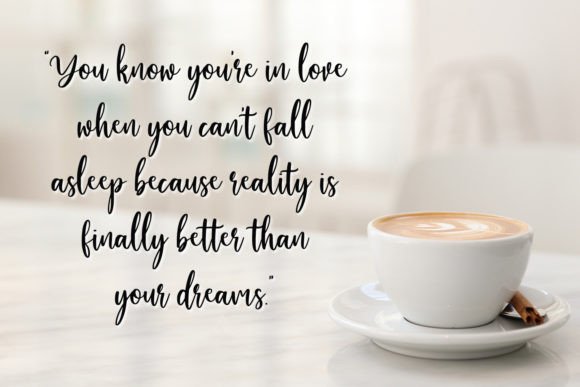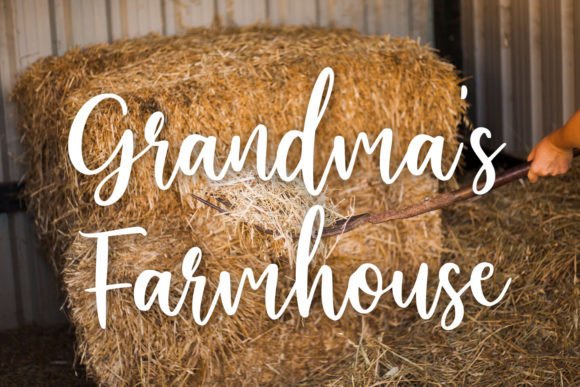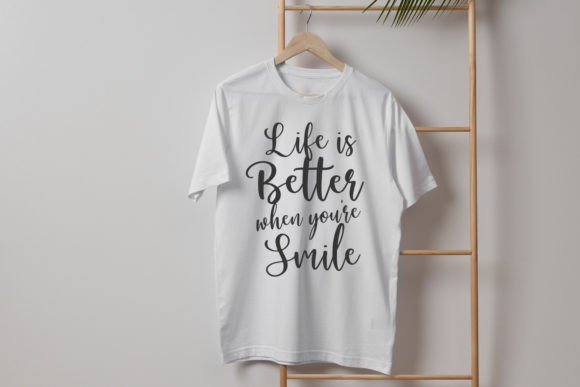
Introduction to Muchas Font
Muchas is a cute and friendly handwritten font.
It is great for quotes, logos, t-shirt designs, tote bag designs, crafts, cards, banners, social media, and more .
Key Features of Muchas Font